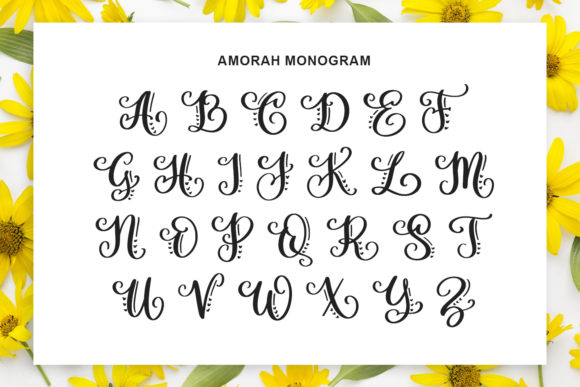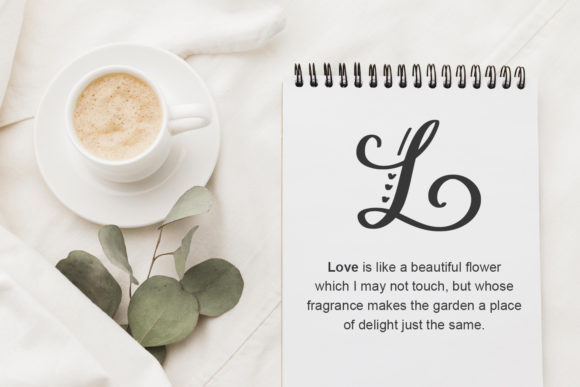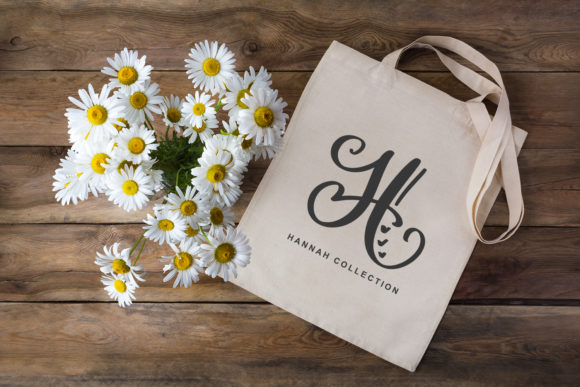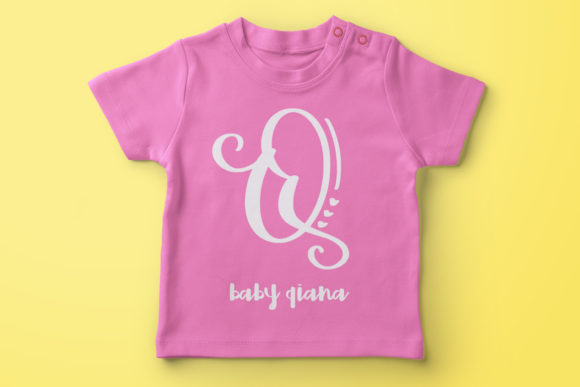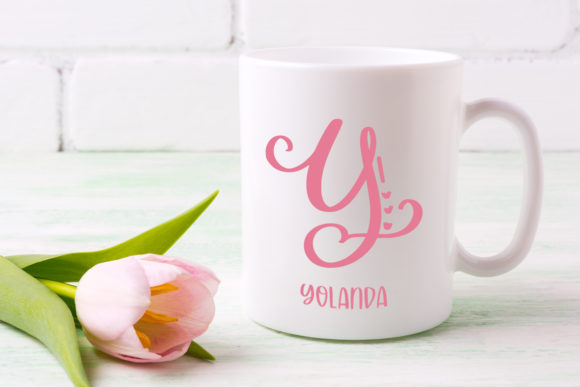
The Amorah Monogram Font: A Delicate Touch for Your Designs
I’ll never forget the moment I stumbled upon the Amorah Monogram font. I was working on a branding project for a luxury client, and I was struggling to find the perfect font to match their elegant and sophisticated vibe. I had tried countless fonts, but none of them seemed to fit the bill. That was until I discovered Amorah Monogram. With its delicate, elegant, and flowing handwritten style, it was love at first sight! ✨
- ✨ The beautiful, well-balanced characters that make it perfect for a wide range of designs
- ✅ The elegant and flowing handwritten style that adds a touch of sophistication to any project
- 💫 The versatility of the font, which makes it suitable for logos, branding, packaging, and more
- 🎨 The ability to use it with OpenType features, glyphs, and stylistic alternates to create unique and creative designs
While Amorah Monogram is an amazing font, there are a few things to keep in mind: ⚠️
- 🤔 Some characters may not work well in very small sizes, so it’s best to use it at larger sizes (around 20-30 points or more)
- ⚠️ The font may not be suitable for very bold or edgy designs, as it’s more geared towards elegant and sophisticated projects
Amorah Monogram was designed with the intention of creating a beautiful, elegant font that would add a touch of sophistication to any design. The designer wanted to create a font that was both delicate and flowing, with a unique character that would set it apart from other fonts. The result is a stunning font that is perfect for a wide range of creative projects.
| Font Name | Amorah Monogram Font |
| Author | Abodaniel |
Q: What type of projects is Amorah Monogram best suited for?
A: Amorah Monogram is best suited for projects that require a touch of elegance and sophistication, such as luxury branding, packaging, and advertising.
Q: Does Amorah Monogram come with OpenType features and glyphs?
A: Yes, Amorah Monogram comes with OpenType features and glyphs, which can be accessed through various design software, such as Adobe Photoshop and Illustrator.
Q: Is Amorah Monogram easy to read?
A: Yes, Amorah Monogram is a clear and legible font that is easy to read, even at smaller sizes.